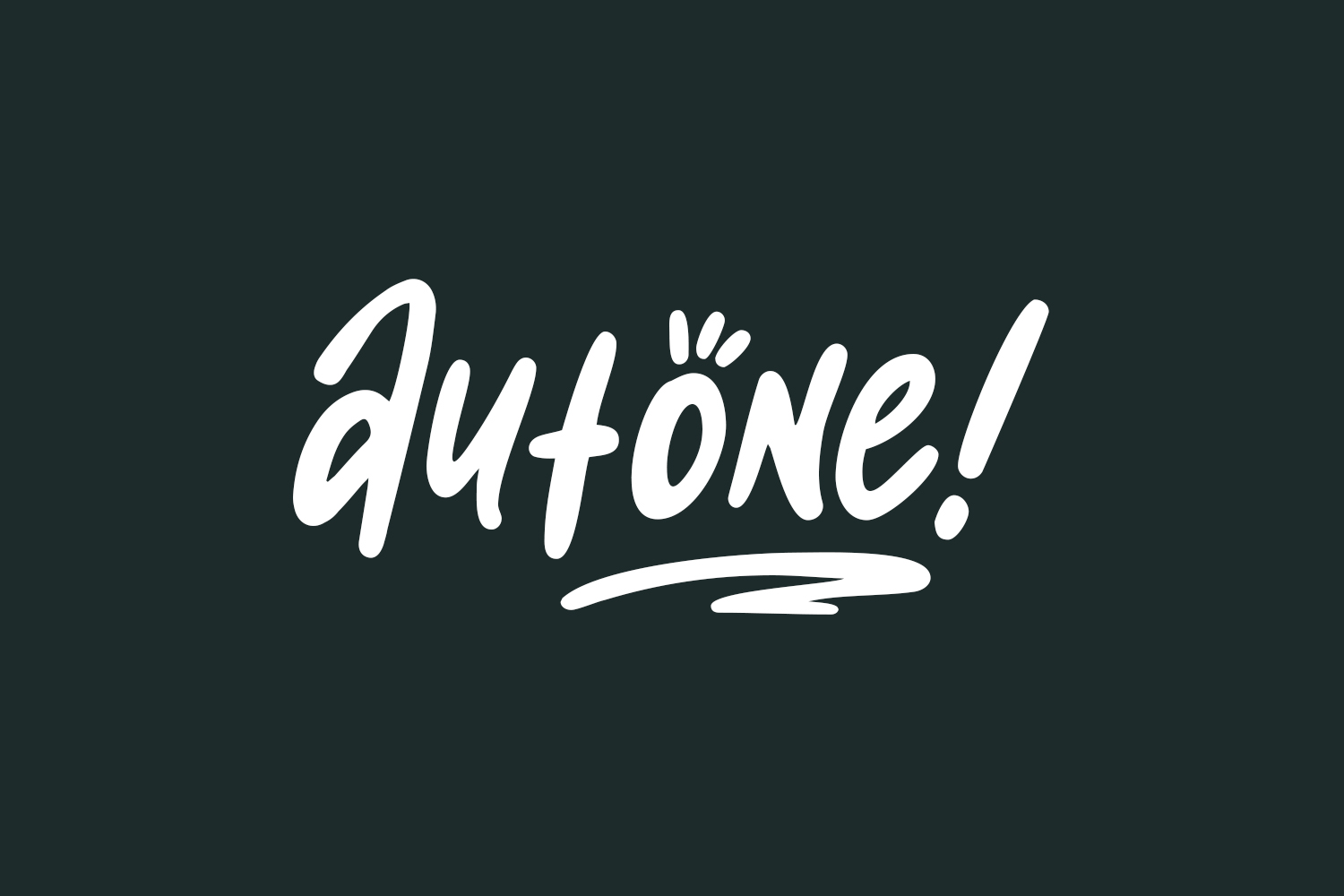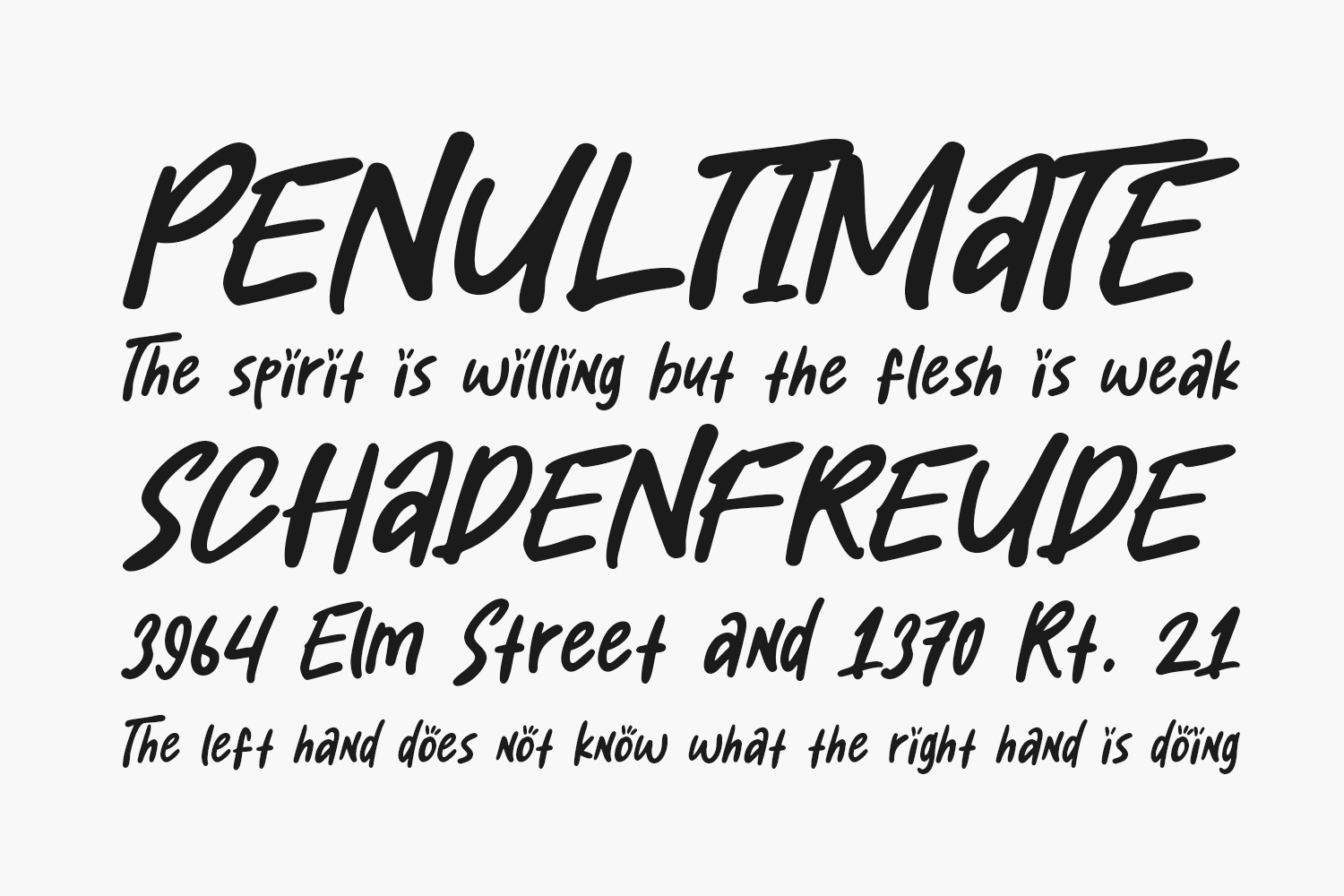
Autone Free Font is an exquisite and contemporary display font that effortlessly elevates your designs. Whether you’re designing posters, logos, magazines, book covers, banners, or any other creative project, this font is your go-to choice. With its remarkable versatility, Autone seamlessly adapts to a wide array of design concepts, allowing your ideas to shine with unparalleled brilliance. Unlock the potential of your creative endeavors by incorporating this amazing font and witness how it effortlessly transforms them into captivating works of art. Grab Autone today and discover the power of standout design. Autone Free Font is free for personal or commercial use.